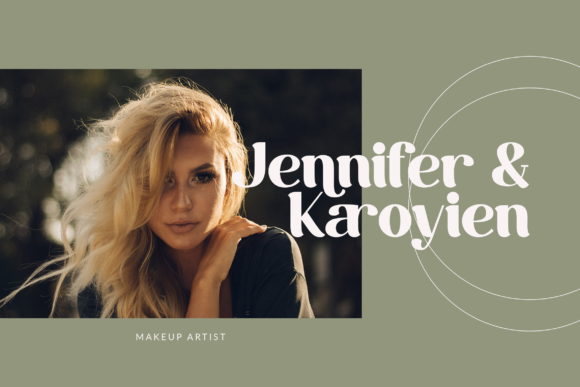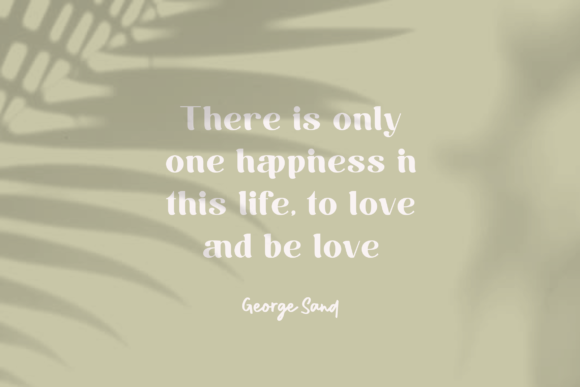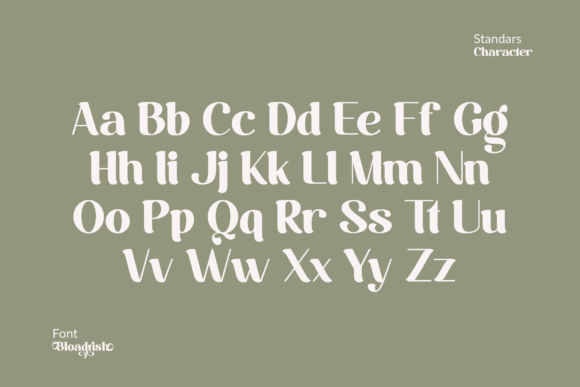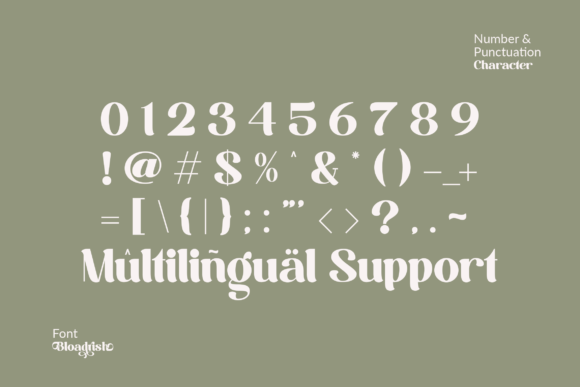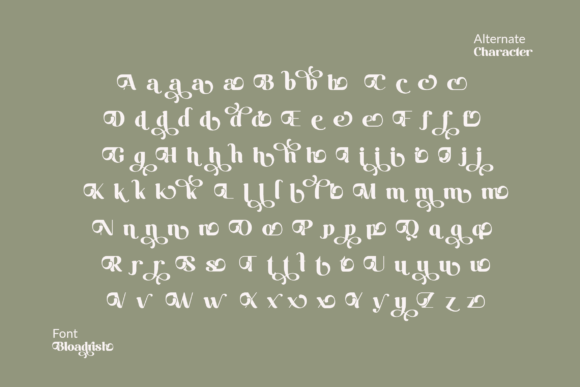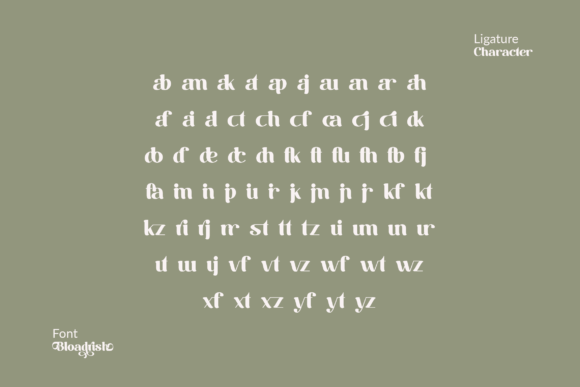
The Bloadrish Font: A Bold and Elegant Serif for Your Creative Projects
I’ll never forget the time I was working on a children’s book design project, and I just couldn’t find the right font to bring the story to life. The client wanted something bold, elegant, and playful, but not too over-the-top. I spent hours scouring the internet, trying out different fonts, but nothing seemed quite right. That was until I stumbled upon the Bloadrish font. ✨
As soon as I saw it, I knew I had found the one. The bold and elegant serif font was perfect for the project, and it added a touch of beauty to the entire design. In this article, I’ll share my experience with the Bloadrish font, including what I love about it, some practical tips on how to use it, and a few similar fonts you might want to consider.
An Honest Review of Bloadrish Font
What I Love About Bloadrish Font
- ✅ Bold and elegant: The Bloadrish font has a unique combination of boldness and elegance that makes it perfect for a wide range of design projects.
- ✨ Playful and yet sophisticated: This font is perfect for designs that require a touch of playfulness, but still need to convey a sense of sophistication.
- 🔥 Highly versatile: Whether you’re designing a children’s book, a poster, or a brand name, the Bloadrish font is a great choice.
While I absolutely love the Bloadrish font, there are a few things to keep in mind. 🤔
- ⚠️ Limited availability of certain characters: Some users have reported that certain characters, such as ligatures, are not available in the font.
- ⚠️ May not be suitable for body text: Due to its bold nature, the Bloadrish font may not be the best choice for body text, especially for longer pieces of text.
The Backstory of Bloadrish Font
The Bloadrish font was designed by a team of typographers who wanted to create a bold and elegant serif font that would be perfect for a wide range of design projects. The font was inspired by classic serif fonts, but with a modern twist. The designers aimed to create a font that would be both playful and sophisticated, making it suitable for designs that require a touch of beauty.
Q: What is the Bloadrish font?
A: The Bloadrish font is a bold and elegant serif font designed for a wide range of creative projects.
Q: Is the Bloadrish font suitable for body text?
A: While the Bloadrish font can be used for body text, it may not be the best choice due to its bold nature. It’s better suited for titles, headings, and short pieces of text.
Q: Is the Bloadrish font available in different styles?
A: The Bloadrish font is available in a range of styles, including regular, bold, and italic.